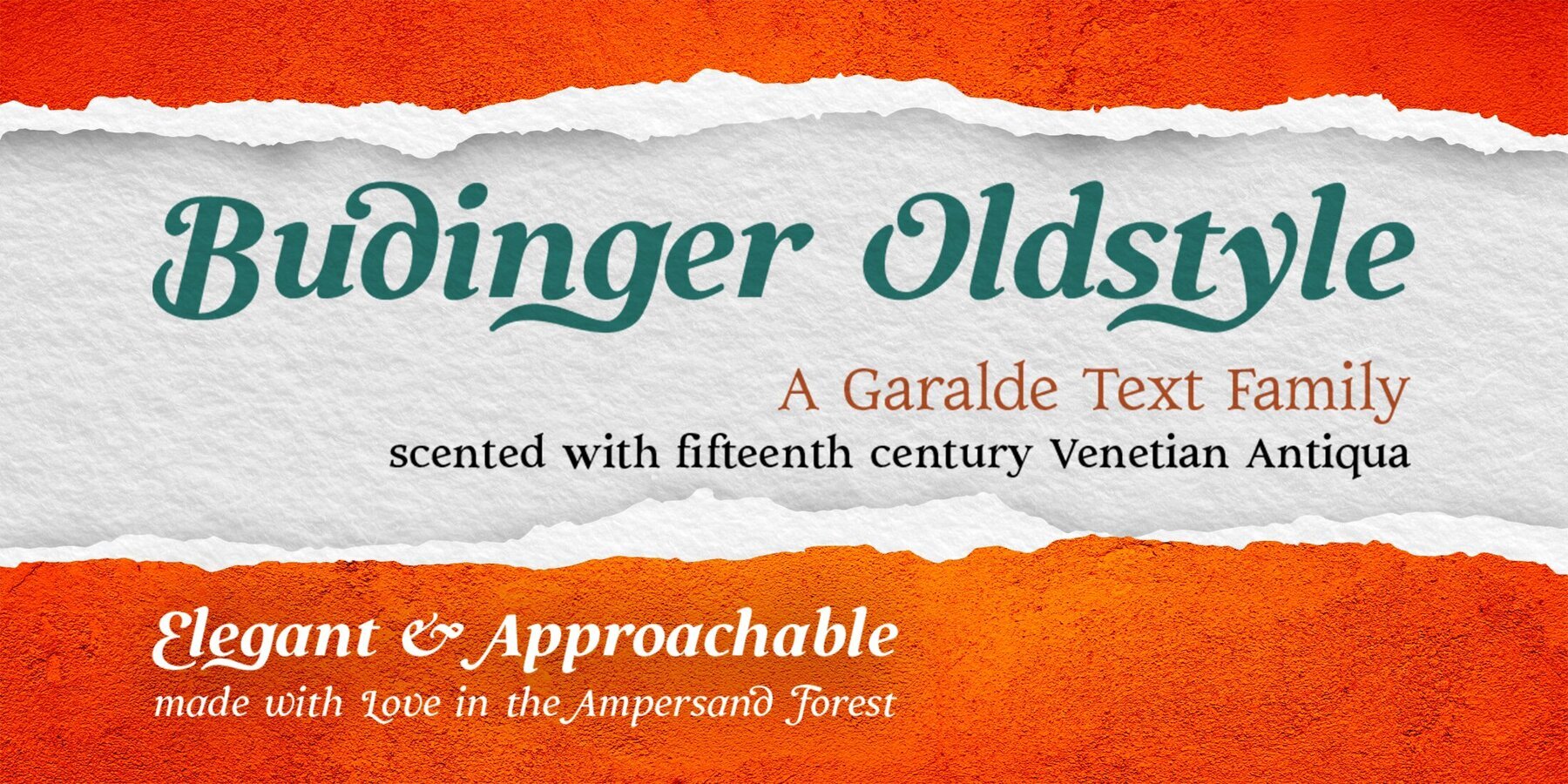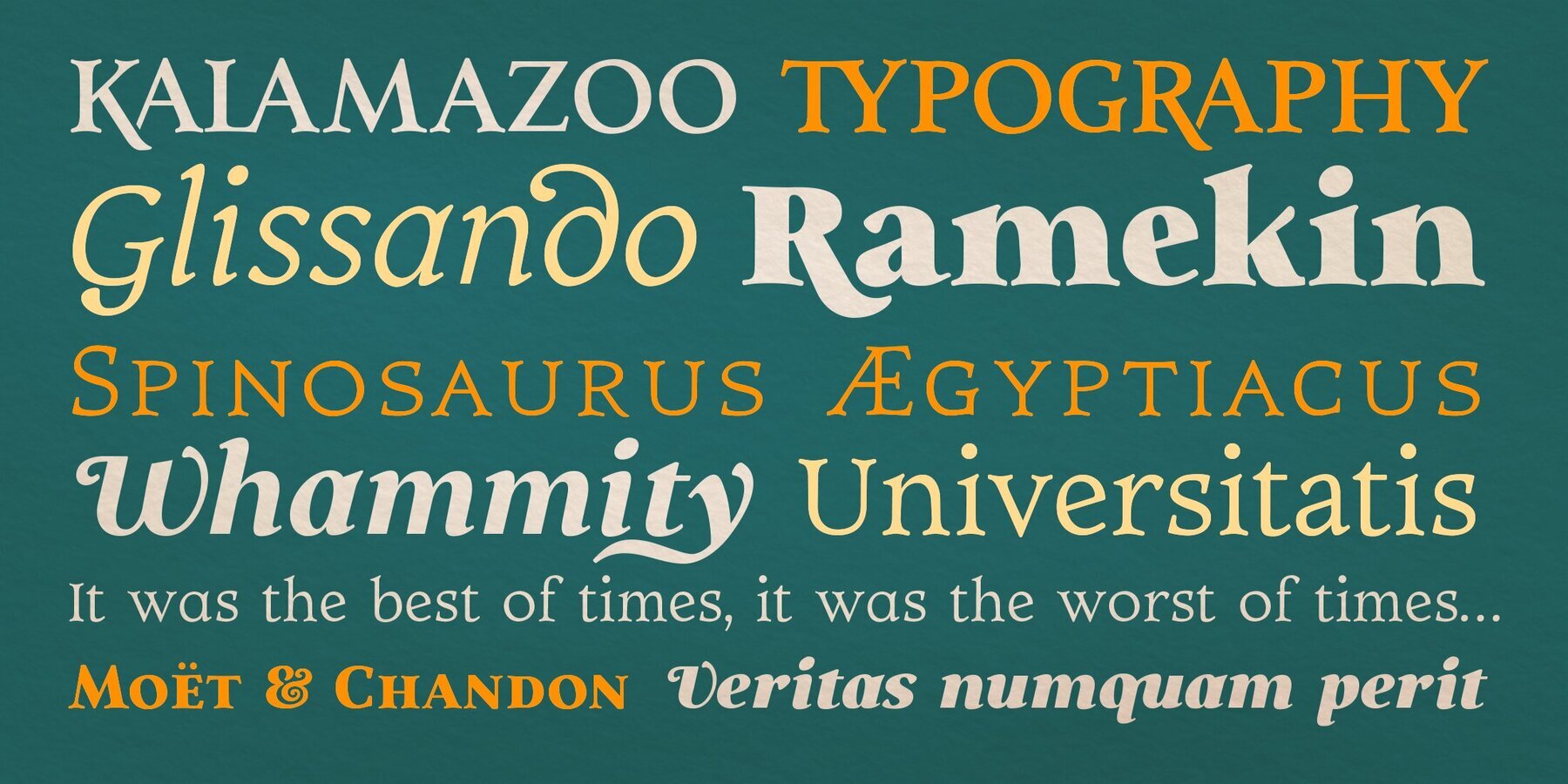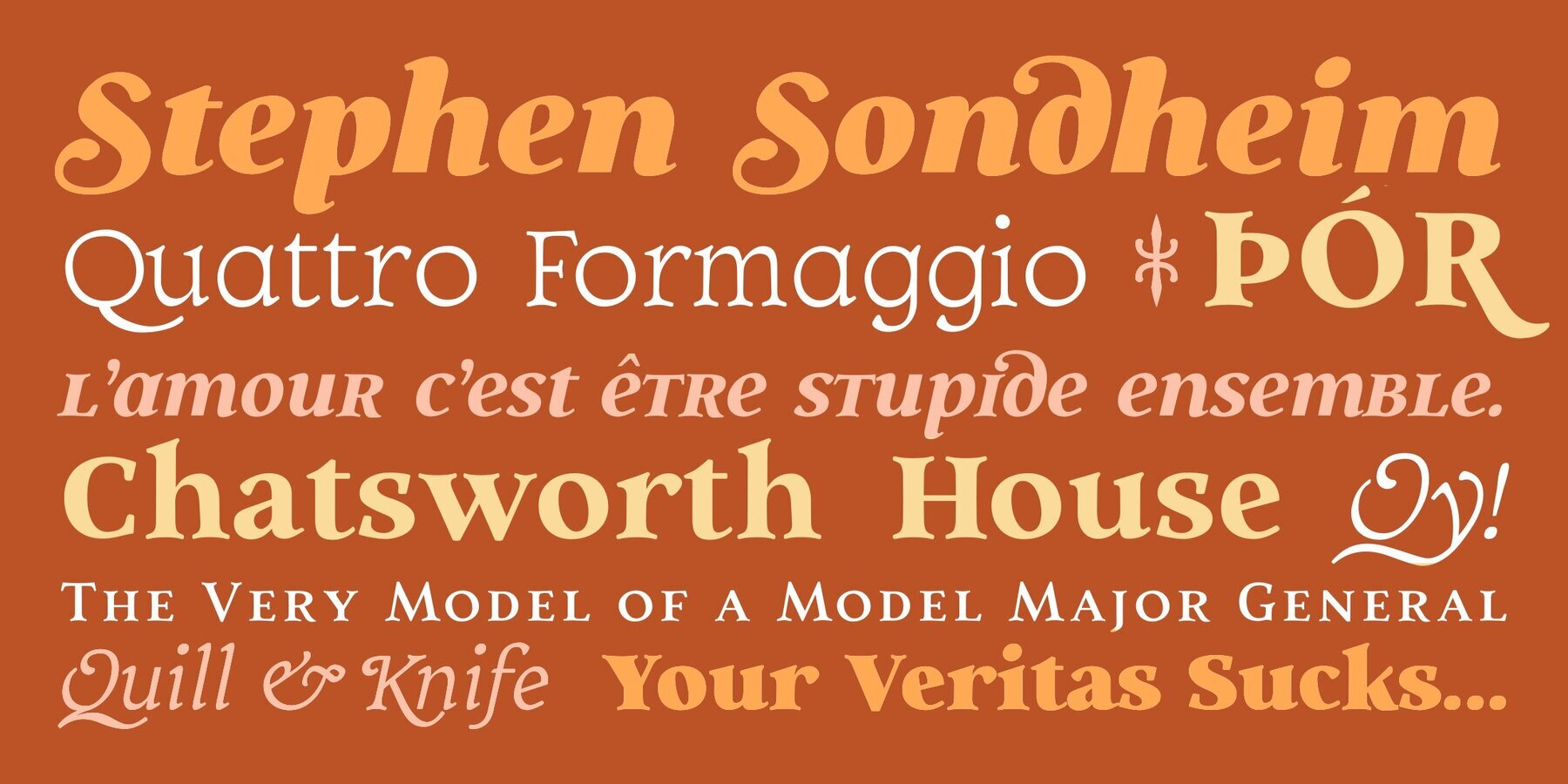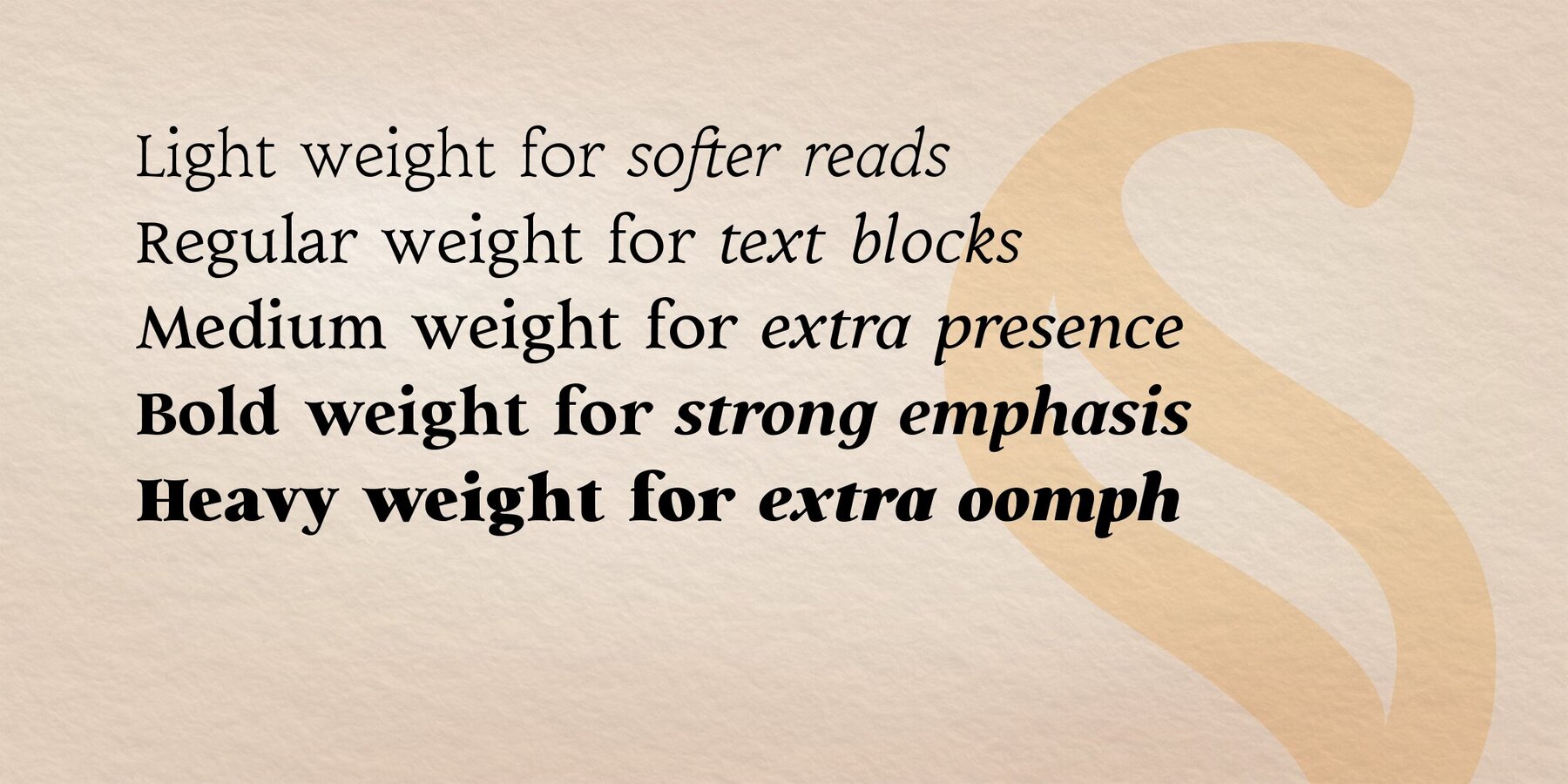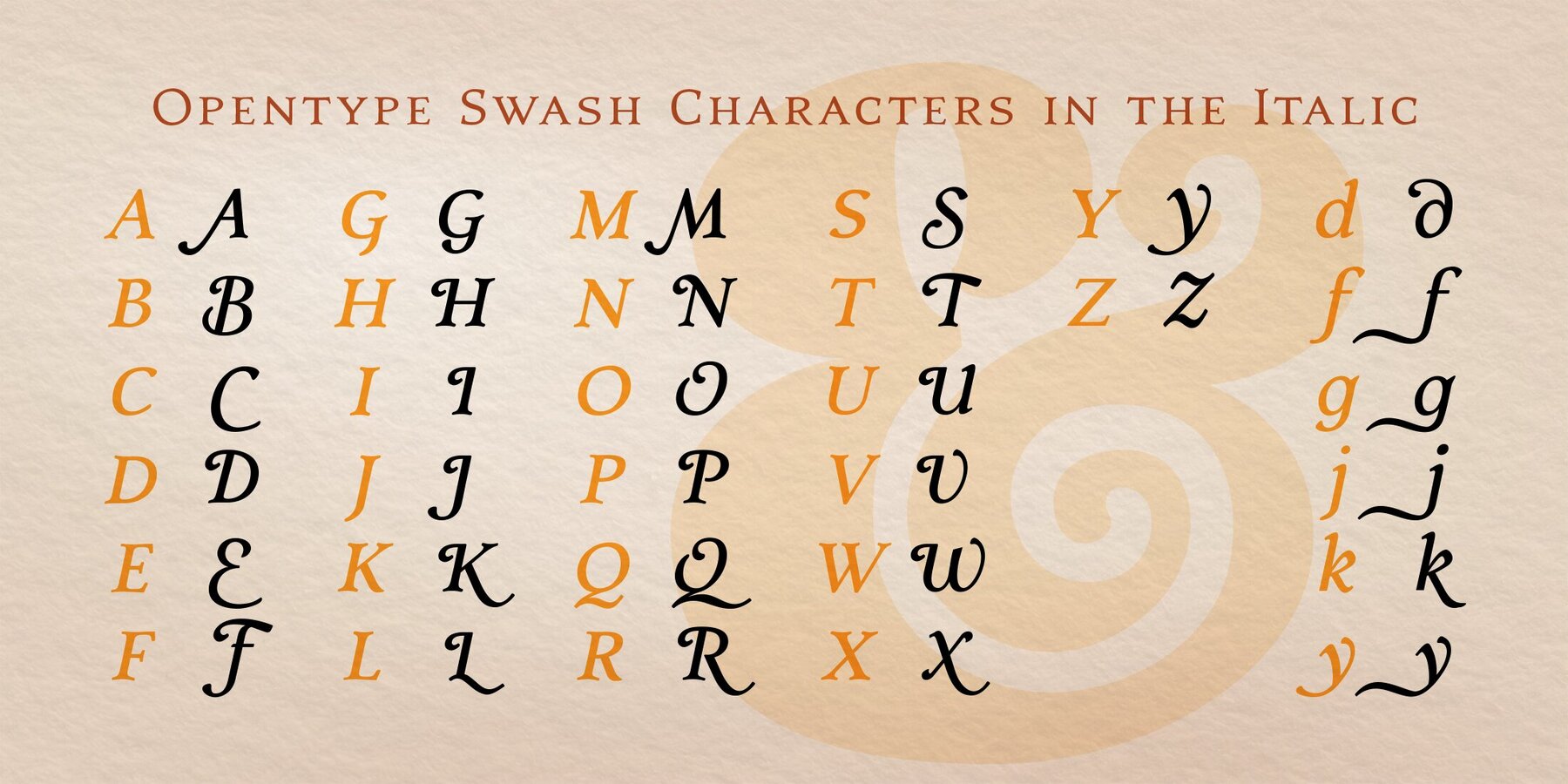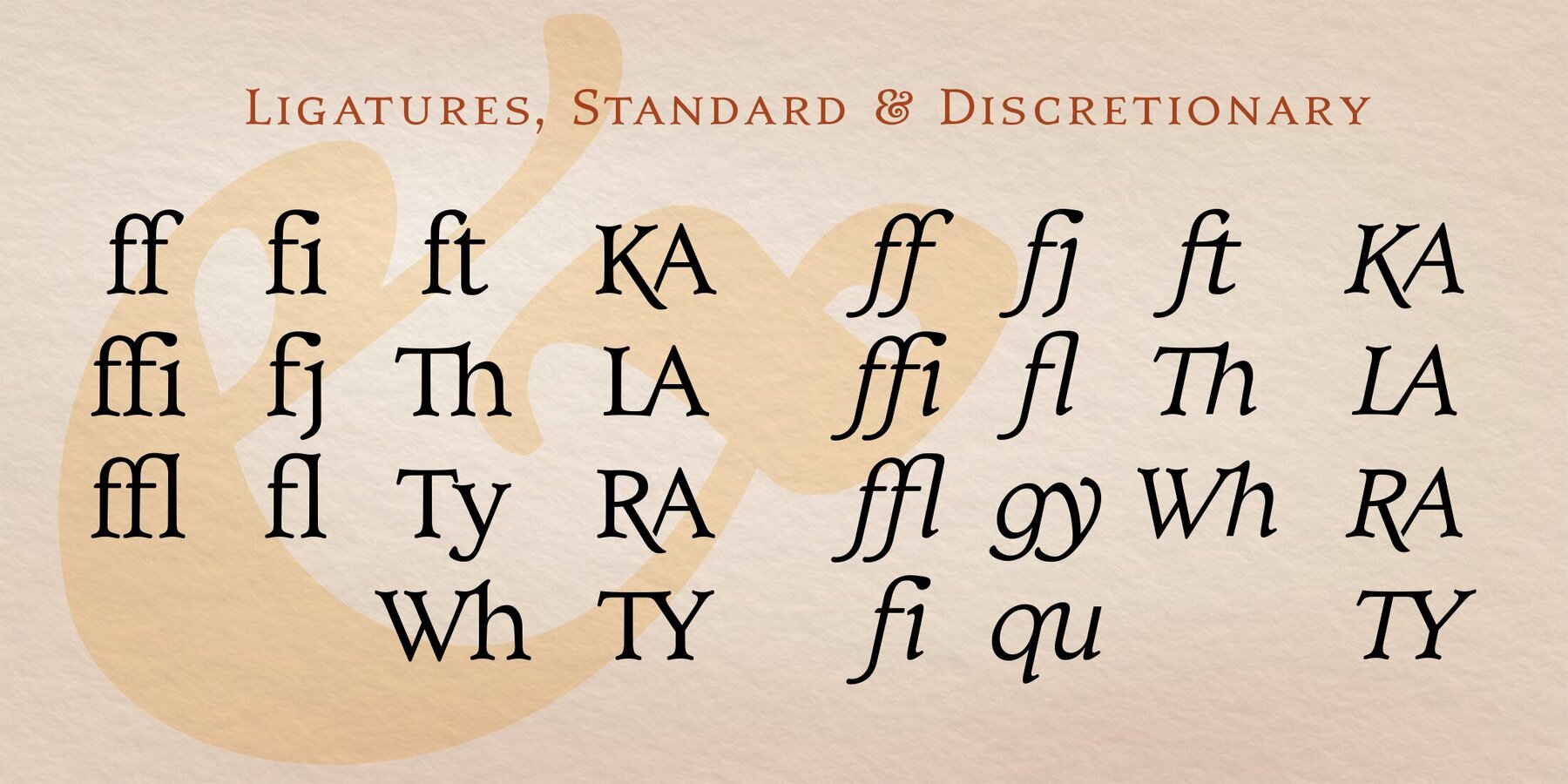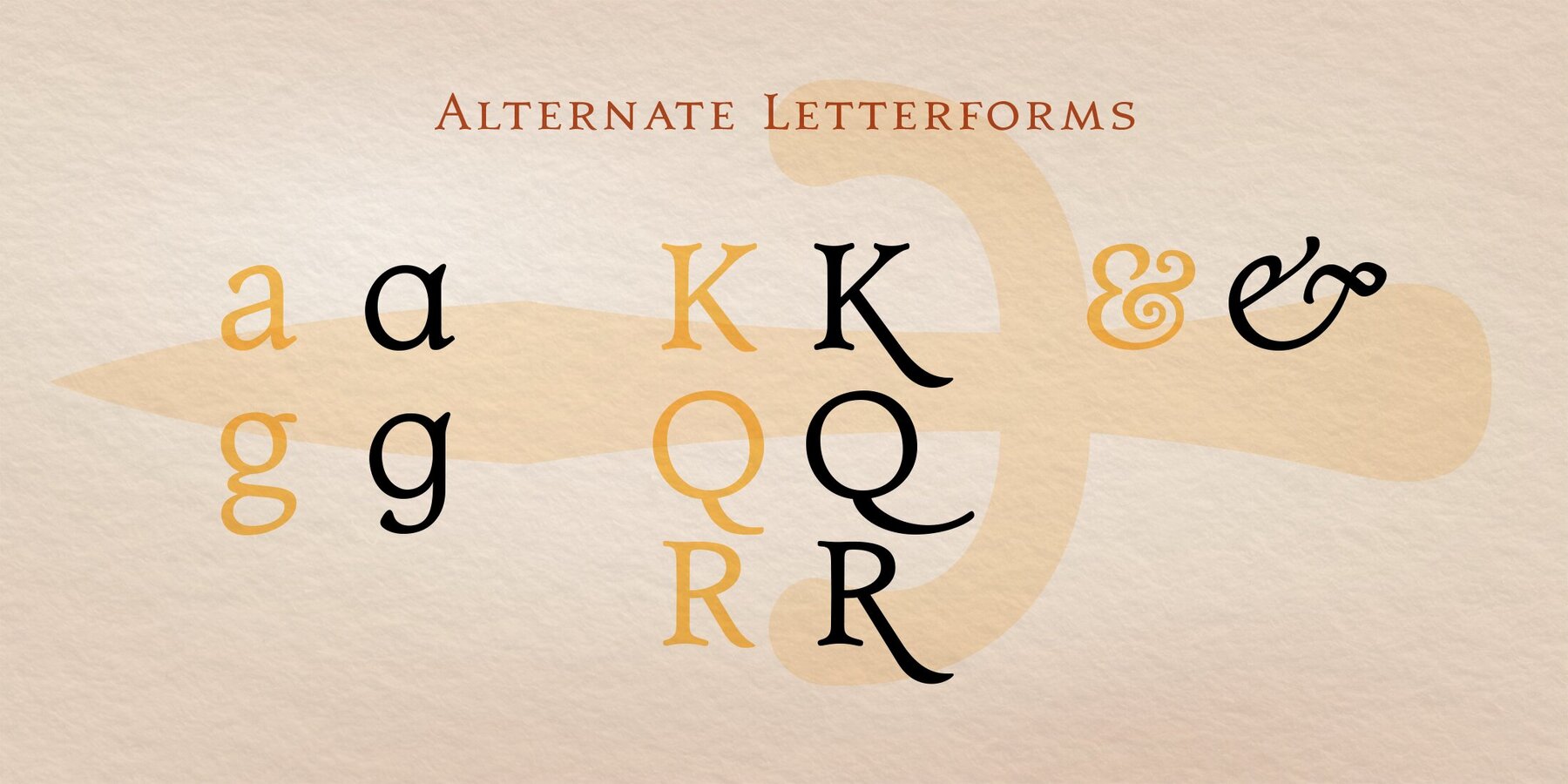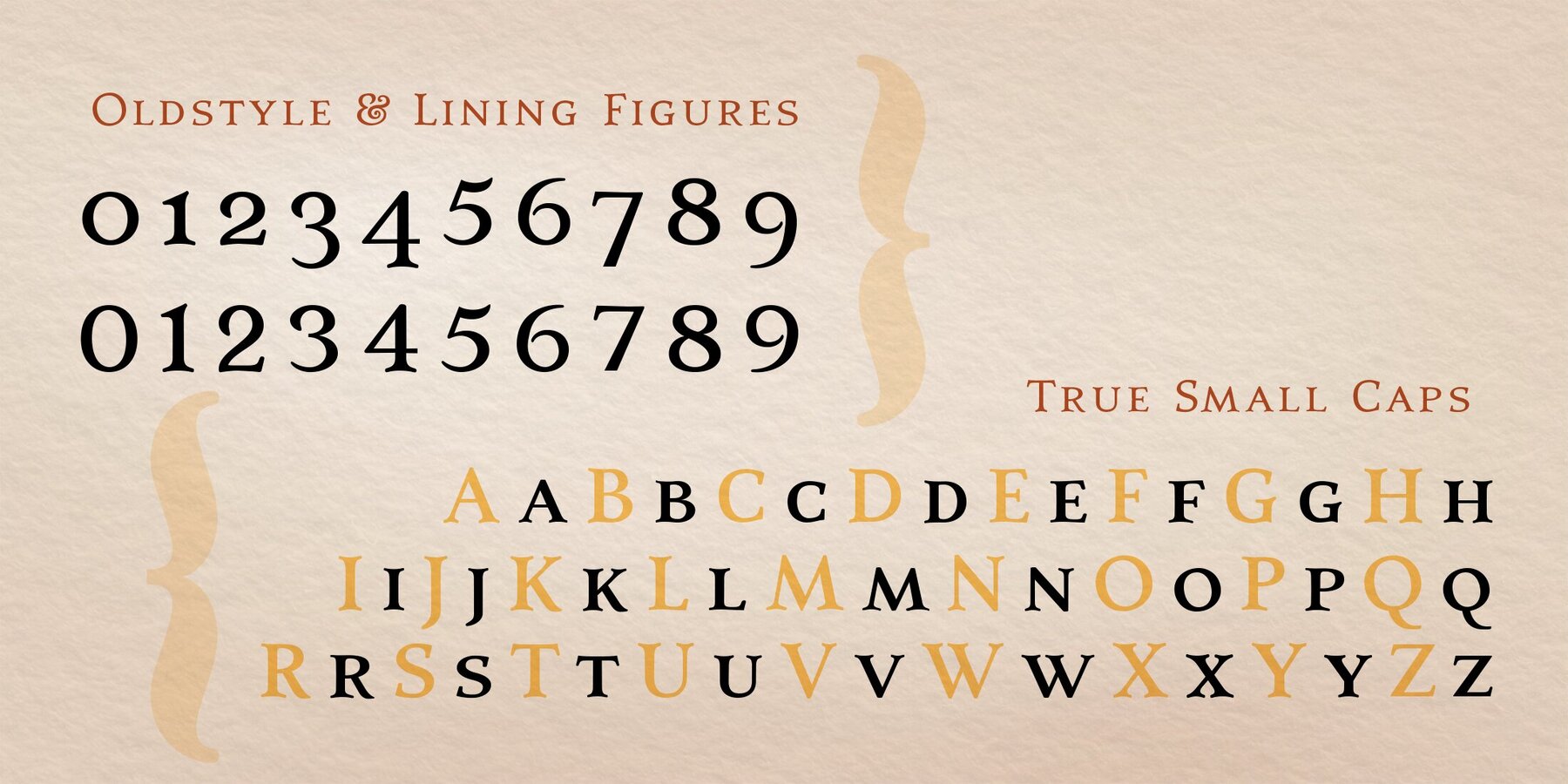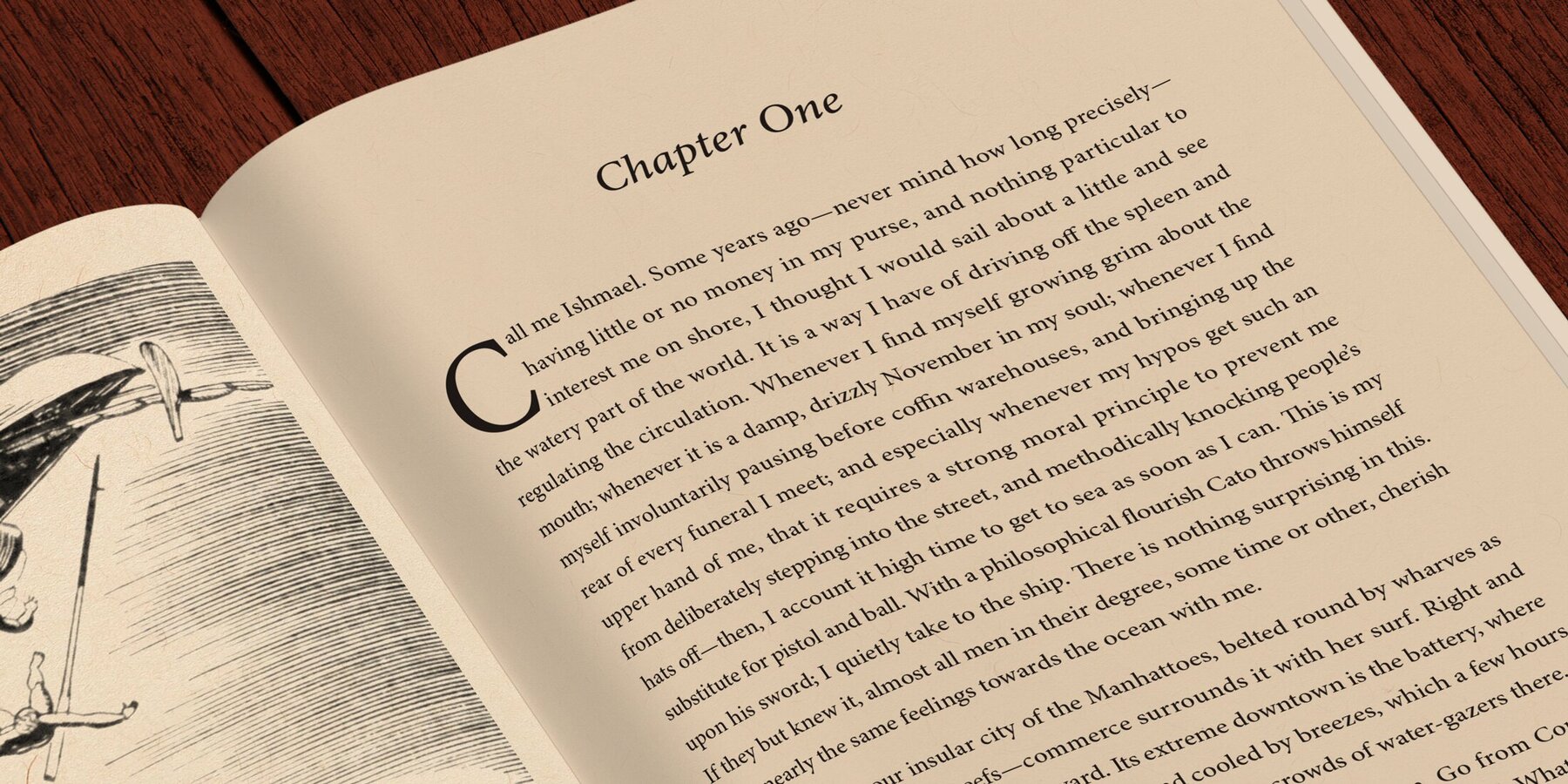
Budinger Oldstyle Font
Budinger Oldstyle is elegant and approachable at the same time, with five different weights, making it a perfect choice for text or display in situations that require a hint of scholarship, fine arts, craft, erudition, and clarity.
Budinger Oldstyle has the legibility of a Garalde (like those of Garamond, Manutius, et al.), with a whiff of Venetian revival (after the fashion of Schneider & Goudy). The letters are arbitrary, with conventions like cupped serifs and leftward stress. It also has a higher x-height than might be expected, to give it an upright posture and openness in the counters. The italic is more compact, with more clearly calligraphic letterforms and conventions like Swash Caps.
Its many features include OpenType alternates (a one-story a and g, and a K, R, and Q with elongated descenders), full and true small caps, both standard and discretionary ligatures, oldstyle and lining numerals, and Swash letterforms in the Italic (all capitals and descenders, plus the ascender of the d).
Plus, the most adorable pudge of an ampersand you've ever seen!